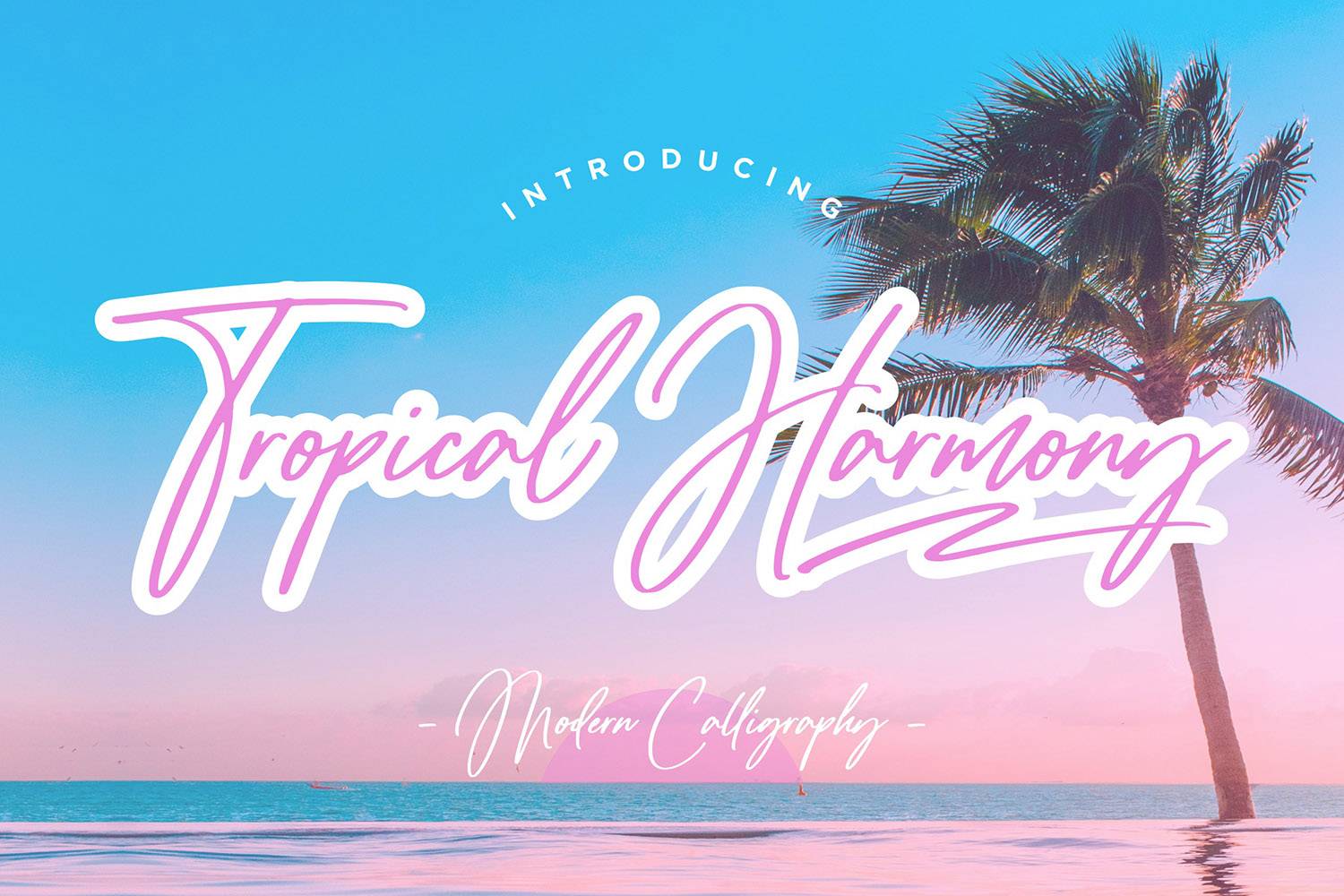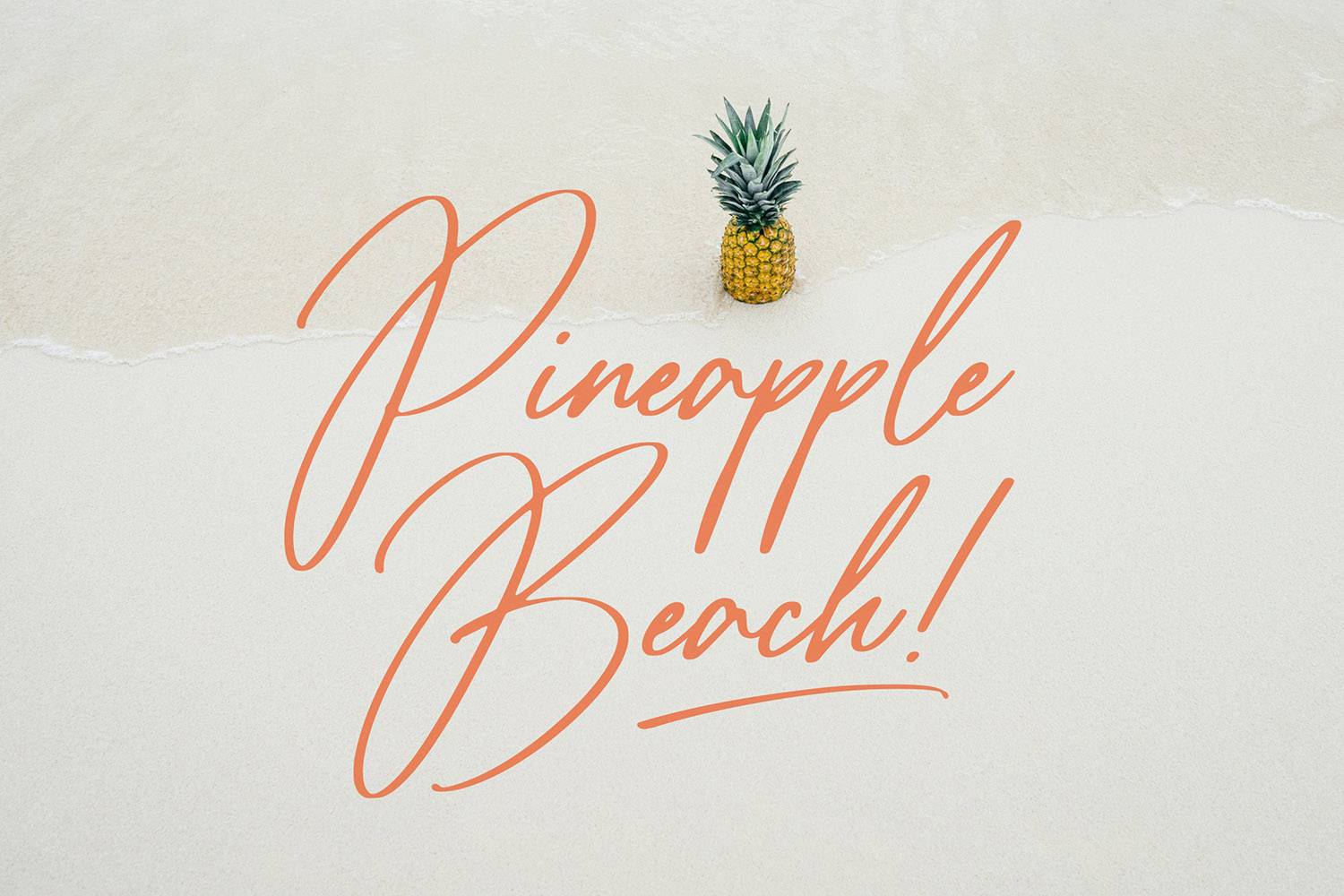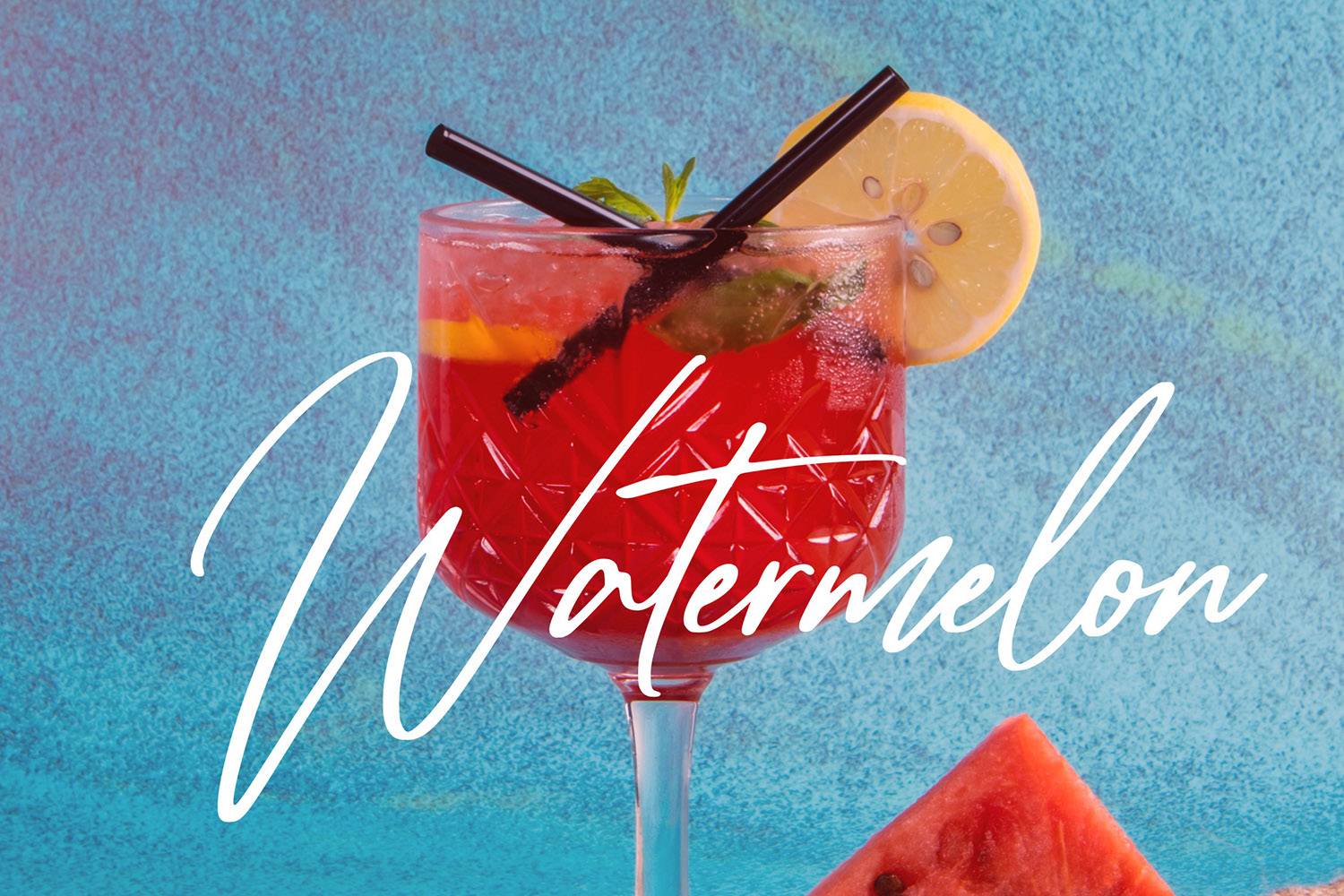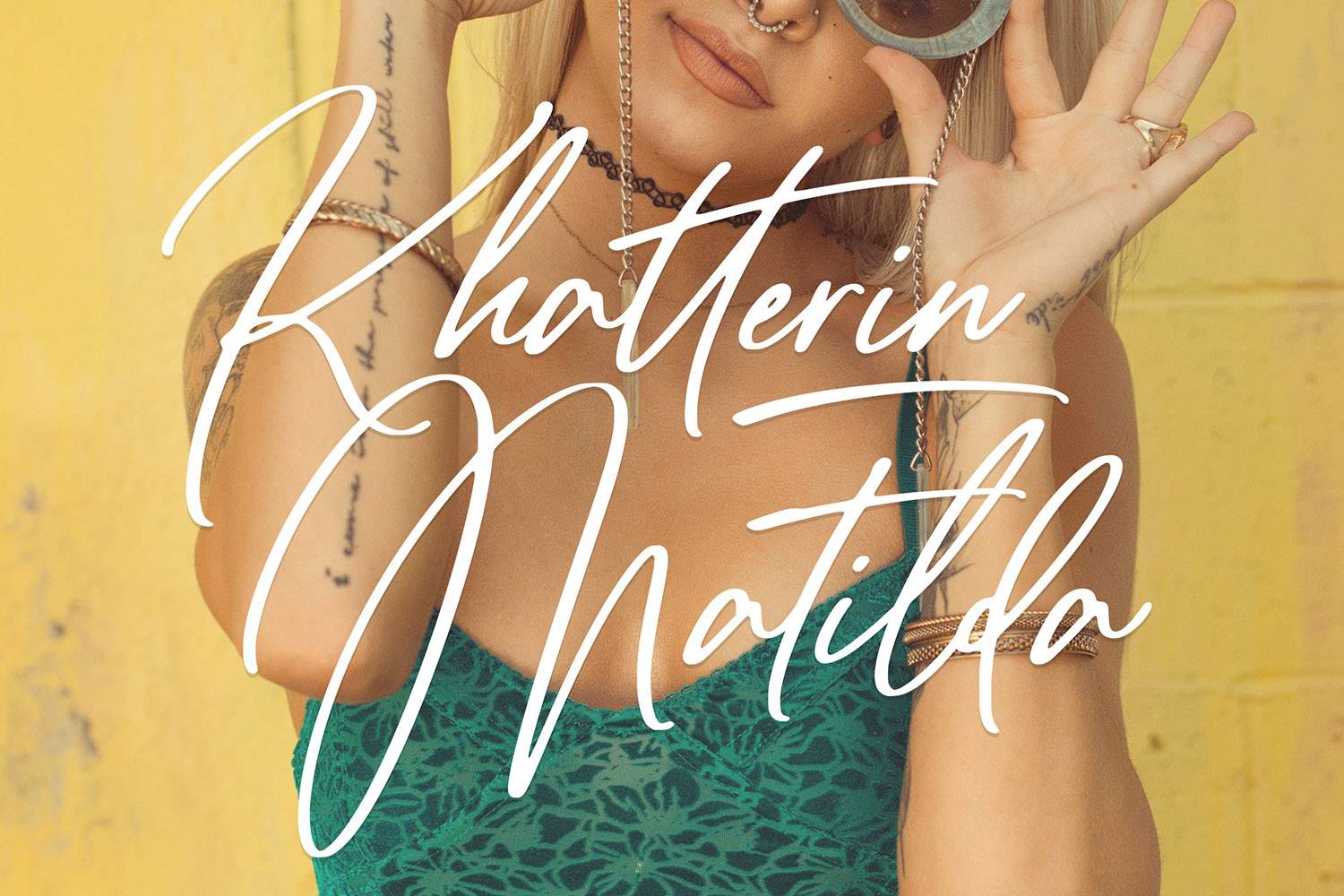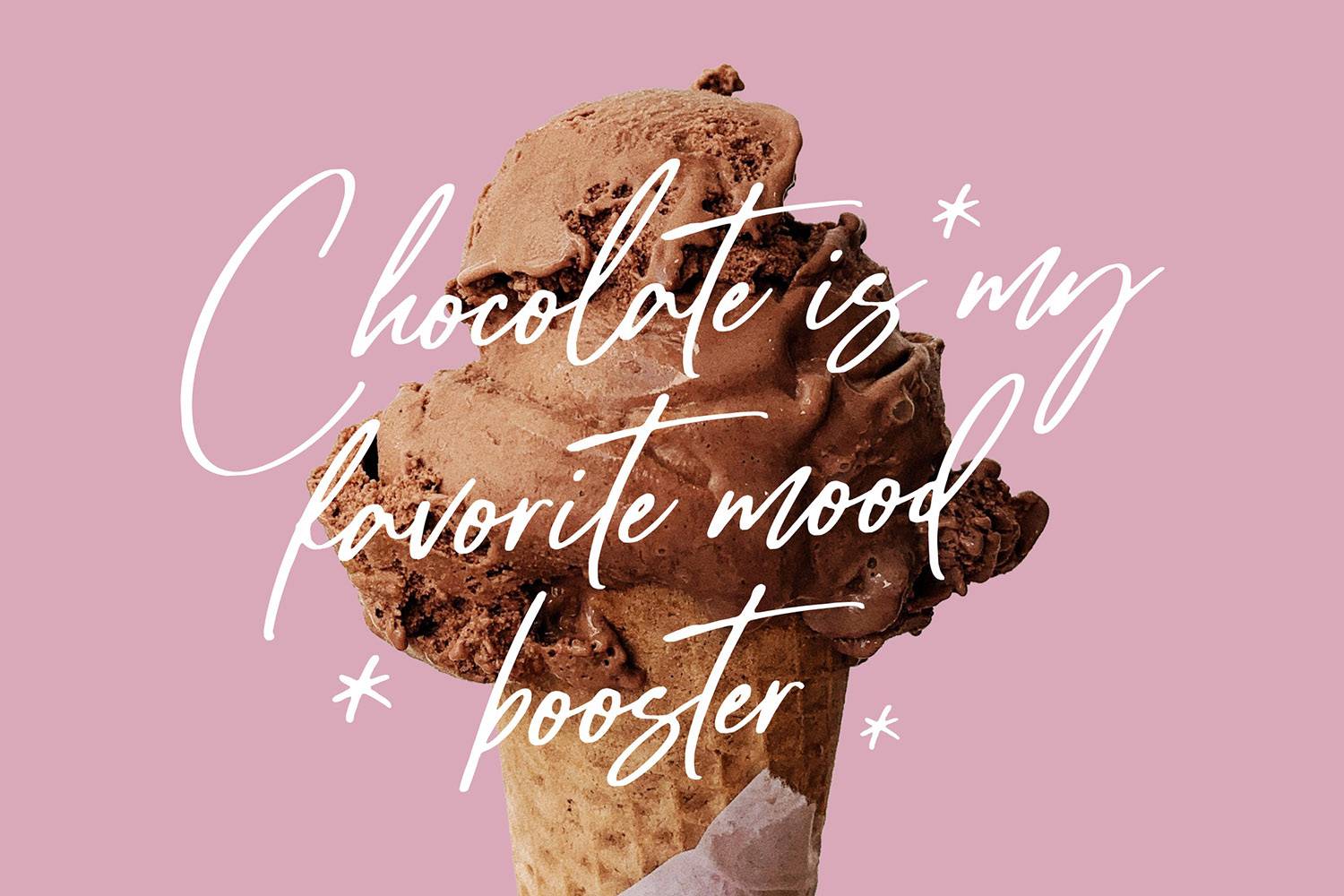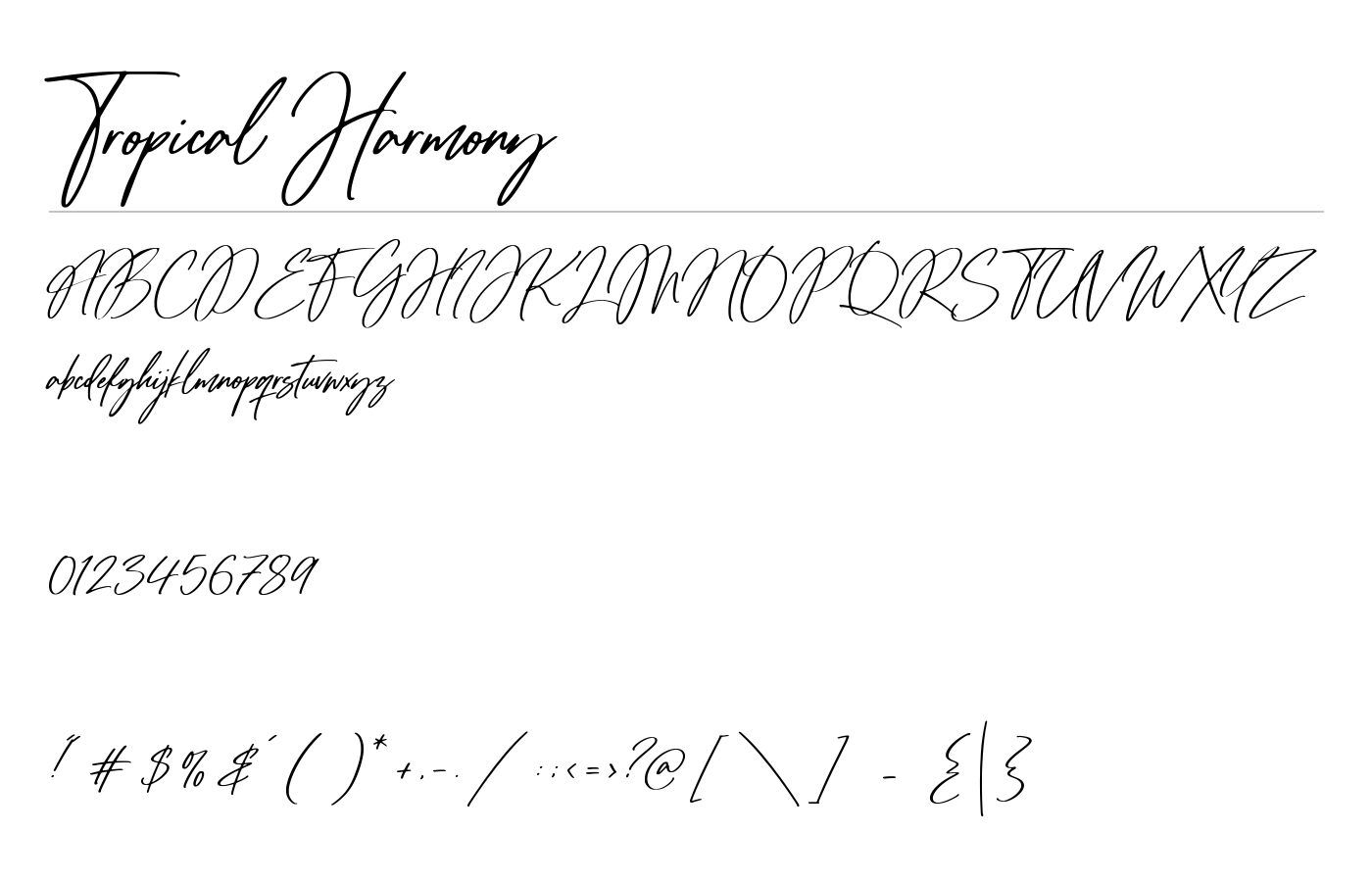
Tropical Harmony is an elegant, handwritten script font with a graceful and flowing style that mimics natural calligraphy. Its thin, delicate strokes and high contrast give it a sophisticated and airy feel, perfect for creating a refined yet approachable look. Ideal for wedding invitations, branding, and stylish headlines, this font adds a personal, artistic touch that enhances any design with charm and harmony.
Tropical Harmony Font
About Tropical Harmony Font